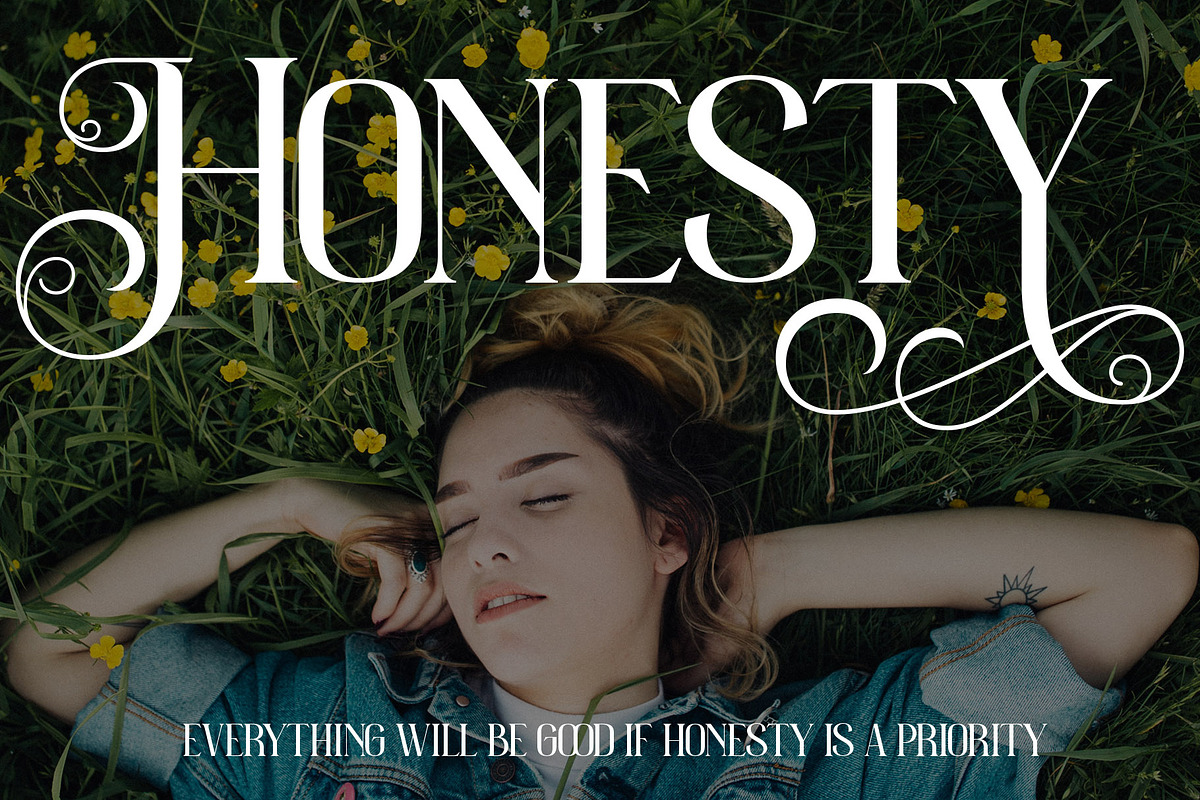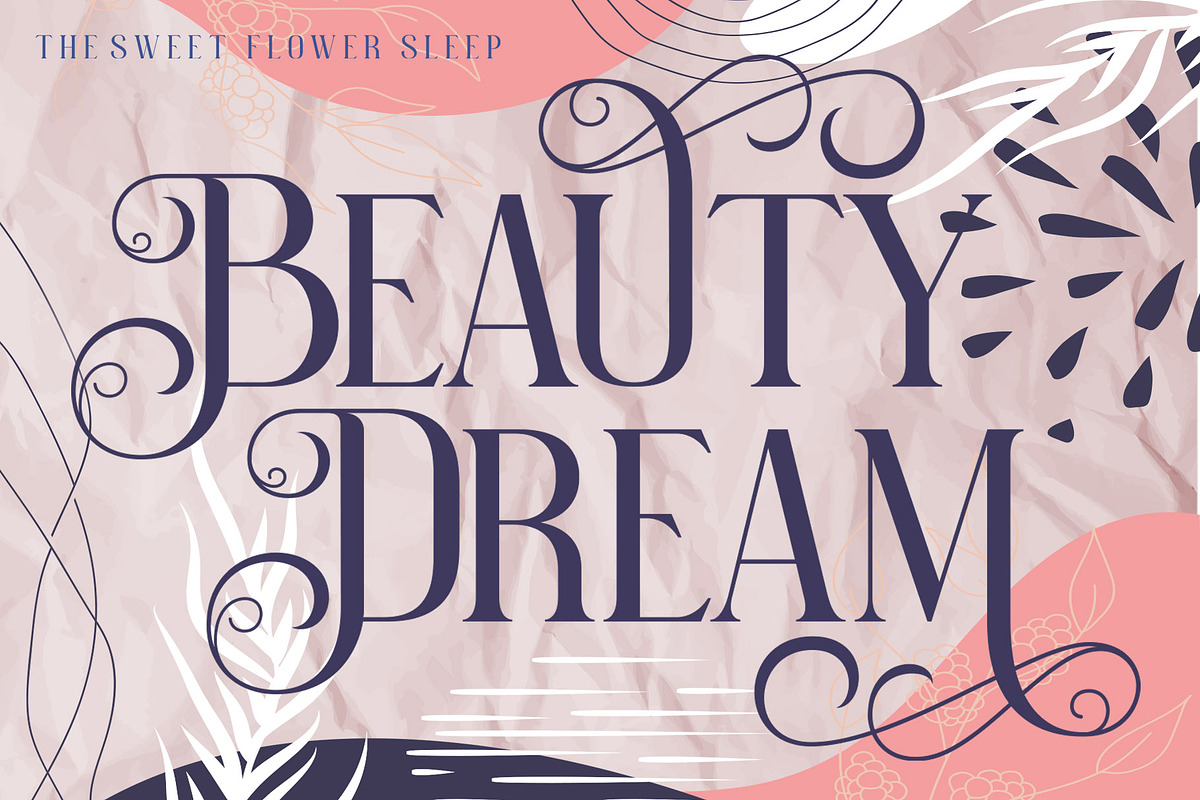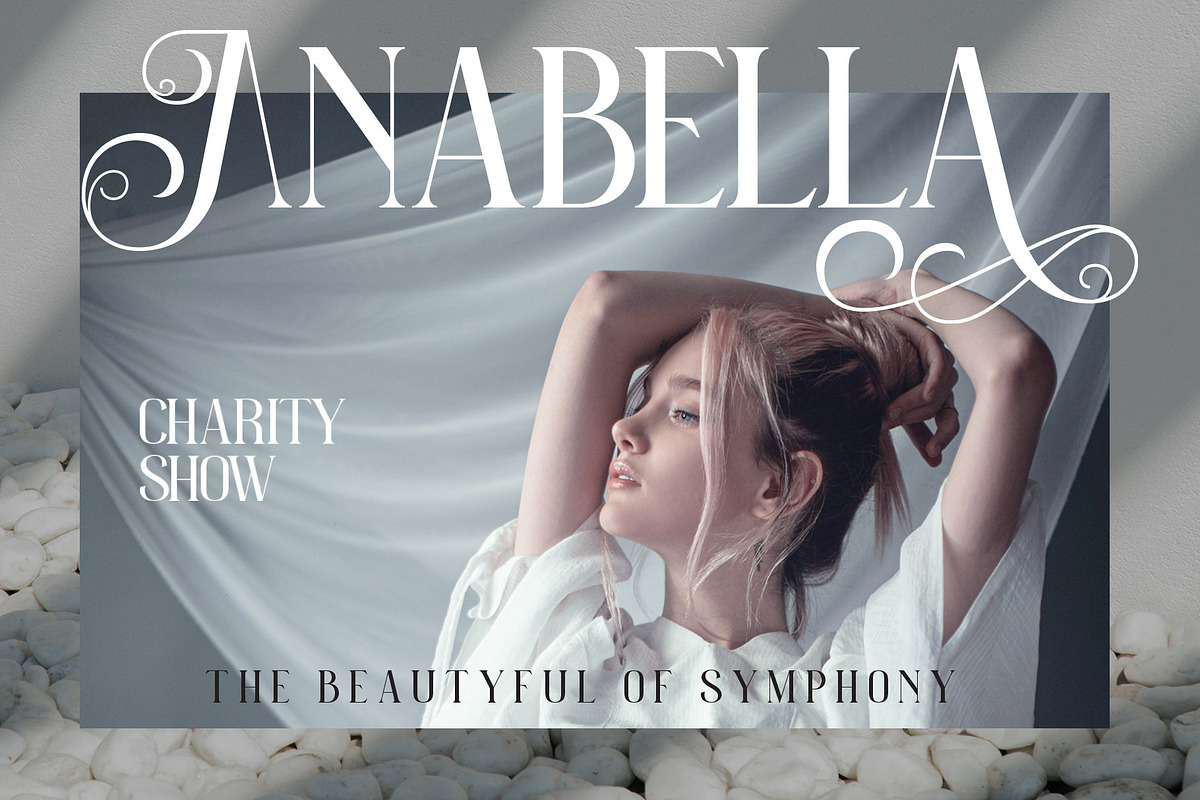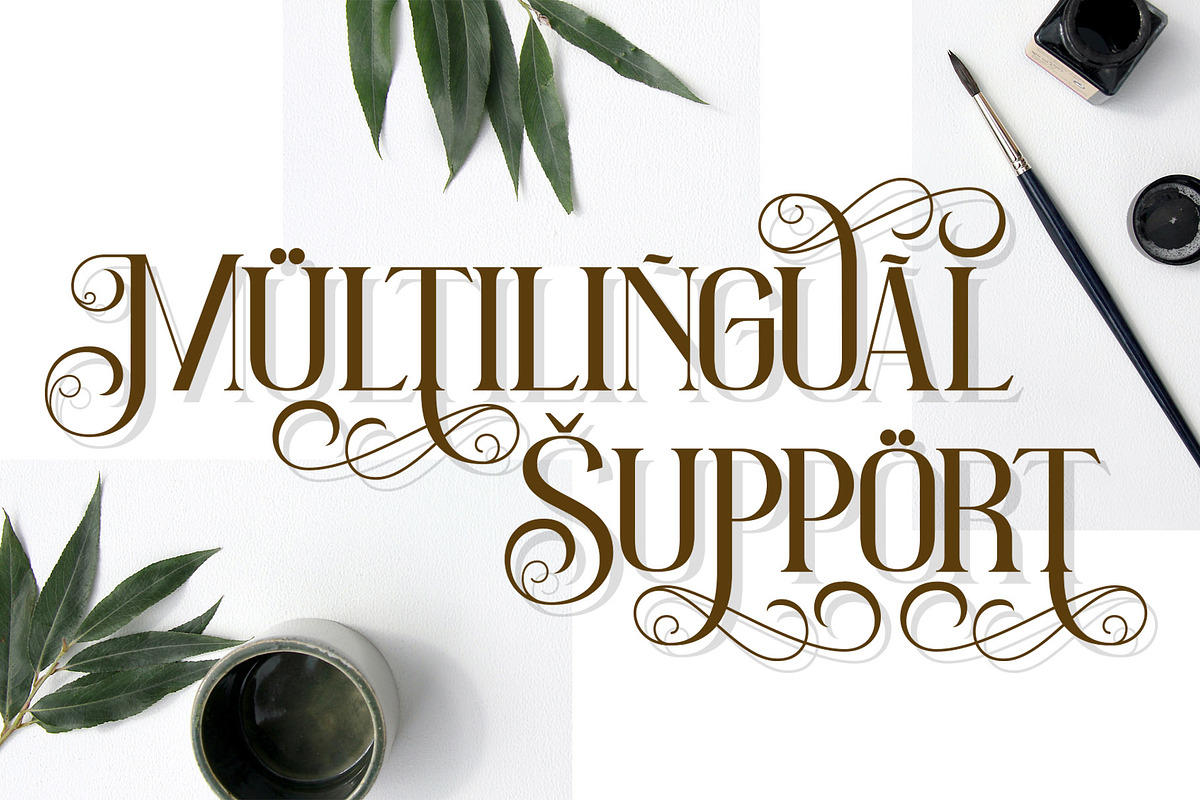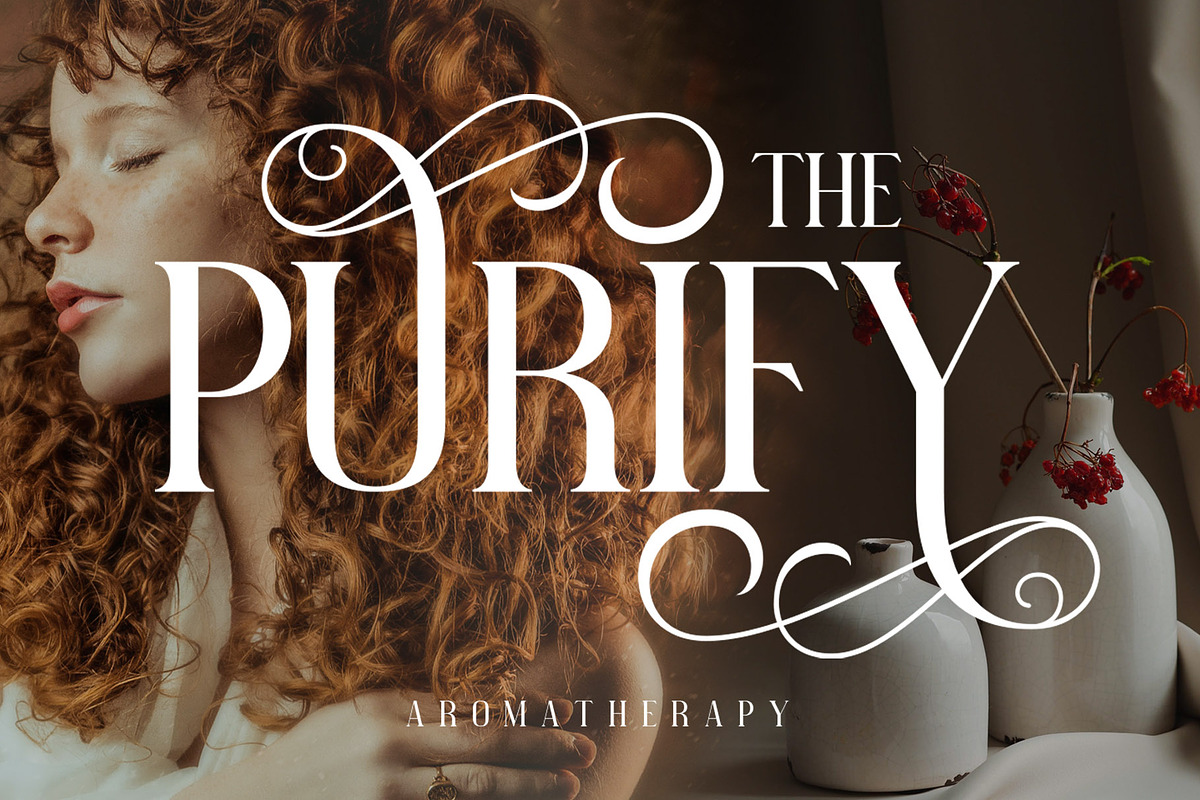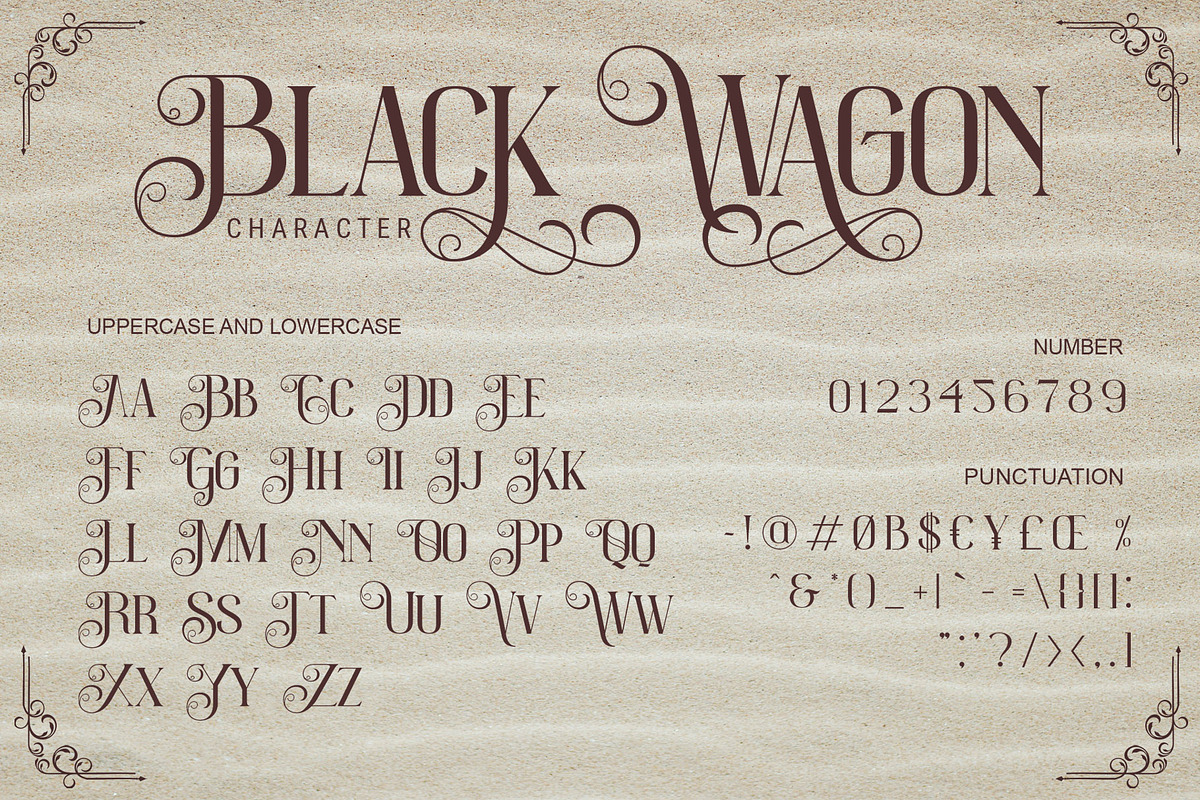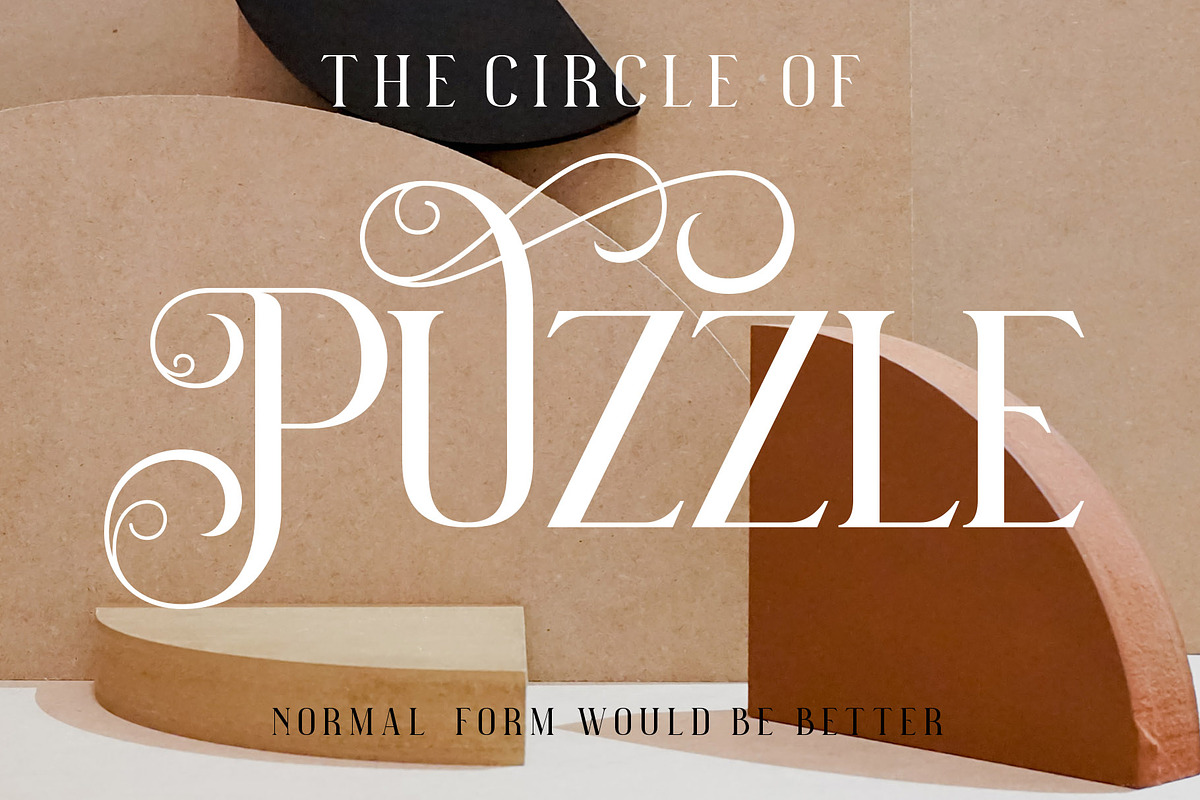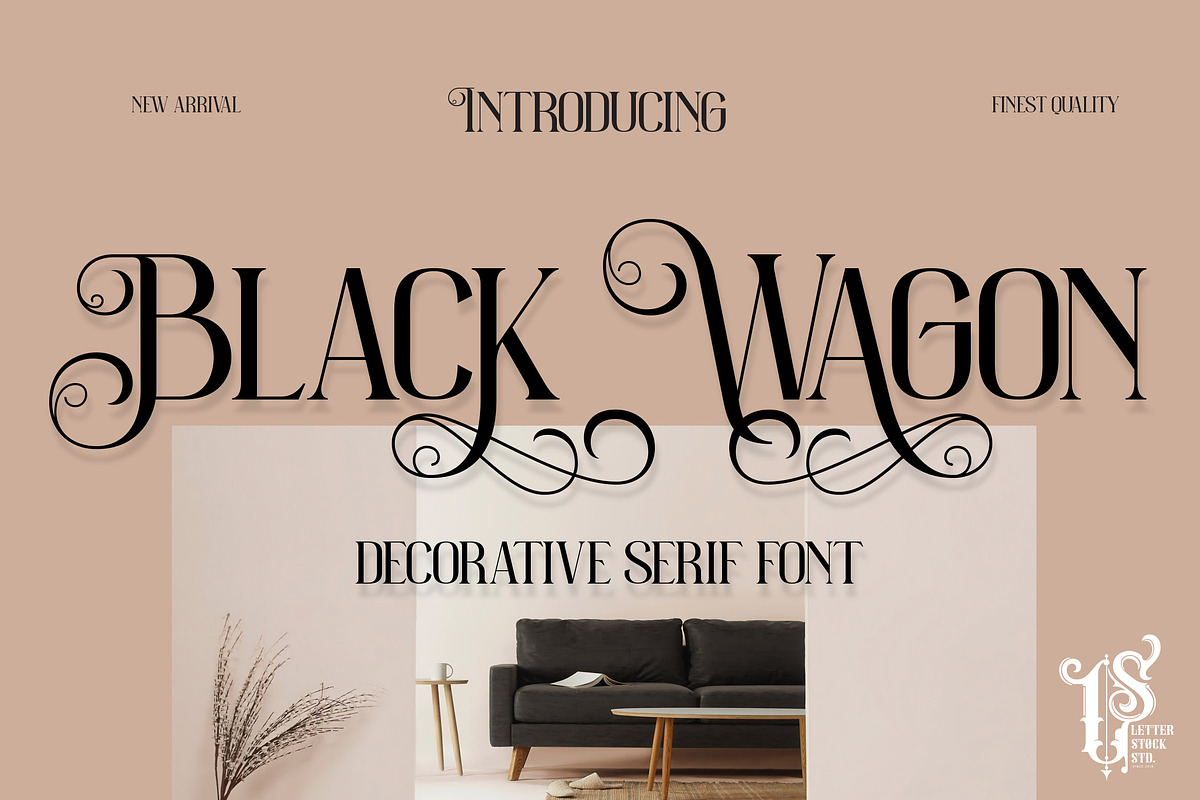
Black Wagon
This pair was inspired by poster design that i saw on street, It was crafted by hand specially to add natural handmade feeling in its brand identity than i make it clean with pentool.
If you need a decorative serif font style, Black Wagon font is great choice for you to make your design looks better and unique.
Black Wagon font has 204 character set included Black Wagon Font is very good looking in logo, movie poster design, youtube thumbnail, labels, product packaging, invitations, advertising and others.